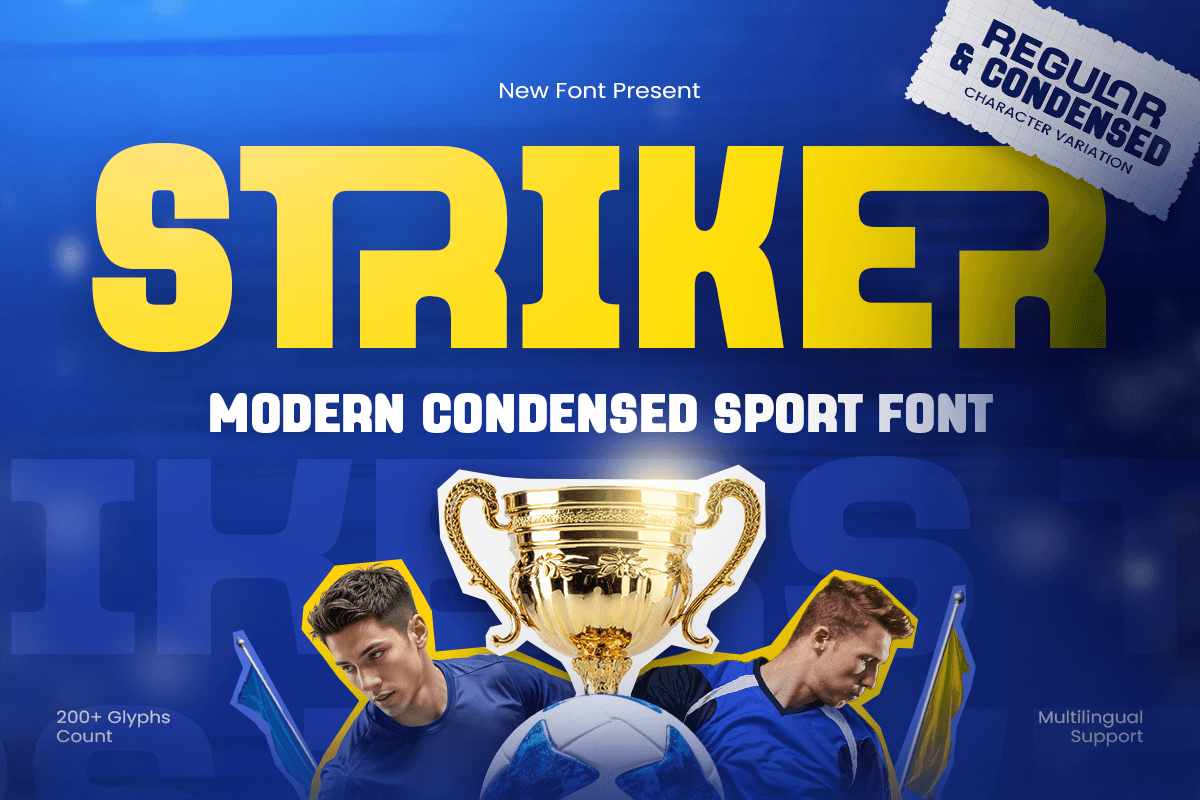
Striker
-Modern Tall Sport Font
STRIKER is a modern tall sport font designed to deliver strength, speed, and vertical impact in every letter. With tall proportions, bold structure, and a clean athletic rhythm, this typeface creates a competitive visual tone that feels energetic, modern, and instantly attention-grabbing.
Built for sports-focused branding, STRIKER works beautifully across team logos, tournament posters, event headlines, championship graphics, social media promos, website headers, banners, signage, and performance-driven marketing visuals. Its tall structure helps headlines feel more commanding while keeping every word clear and powerful across both digital and print layouts.
Whether you’re building an athletic identity, designing a sports event campaign, creating esports visuals, or crafting energetic promotional content, STRIKER provides a bold typographic foundation that makes your typography feel dynamic, competitive, and unforgettable.
Inspiration Behind STRIKER
STRIKER is inspired by modern athletic branding and competitive sports typography—where vertical rhythm, bold geometry, and strong momentum shape a winning visual identity. The design focuses on tall proportions and clean sporty structure to support sports campaigns, team branding, and high-energy headline design with a sharp contemporary edge.
STRIKER Font Features:
• Modern tall sport letterforms with bold athletic character
• Available with 2 style: normal and condensed style inside
• Perfect for team branding, event headlines, and tournament visuals
• Strong readability for posters, banners, and competitive campaigns
• Tall structure for impactful and energetic typography
• Sports logos, team branding, and athletic identity systems
• Tournament posters, championship banners, and event promotions
• Esports visuals, social media graphics, and digital sport campaigns
• Fitness branding, performance marketing, and energetic headlines
• Website headers, signage, and modern sports promotional layouts